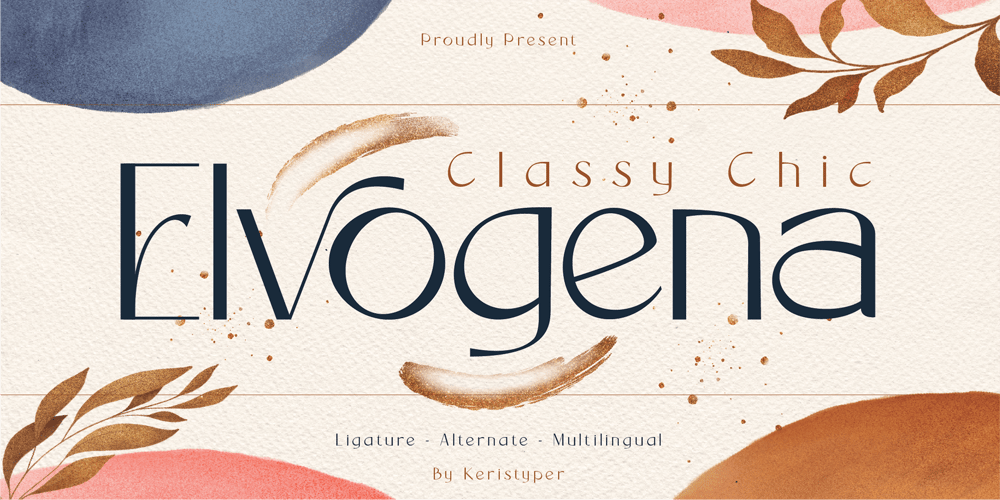
Elvogena Font Family was designed by Tezar Tantular and published by Keristyper Studio. Elvogena contains 1 styles and family package options. Elvogane is a classy chic font that is both stylish and unique with smooth curves. This font is good for logo design, Social media, Movie Titles, Books Titles, short text even long text letters, and good for your secondary text font with sans or serif.**Featured:*** Standard Uppercase & Lowercase* Numeral & Punctuation* Multilingual : ä ö ü Ä Ö Ü ß ¿ ¡* Alternate & Ligature* PUA encodedWe recommend programs that support the OpenType feature and the Glyphs panel such as Adobe applications or Corel Draw. so you can use all the variations of the glyphs.Hope you enjoy our fonts!